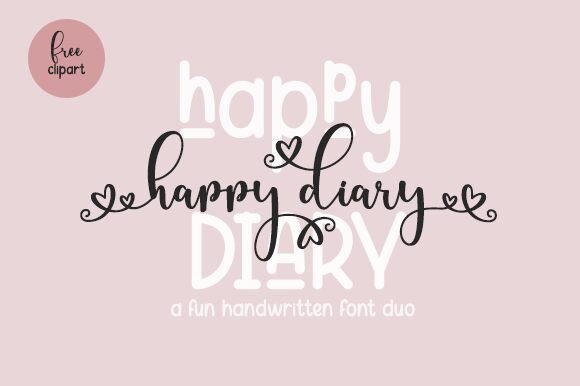
Happy Diary Display font by Fillo Graphic features an informal, casual, and friendly design. The handwritten strokes extend to the varied positions of characters as well that move through straight and arched lines and occasional loops. Its approachable tone is one of modern displays whose designs easily engage a viewer’s eye even if on conscious or subconscious levels.